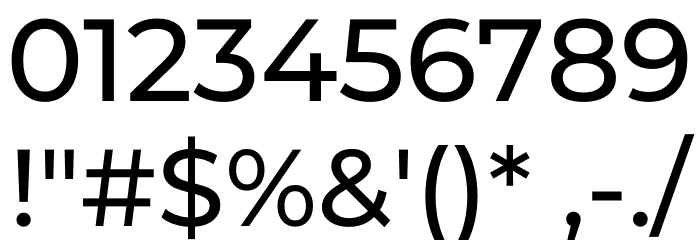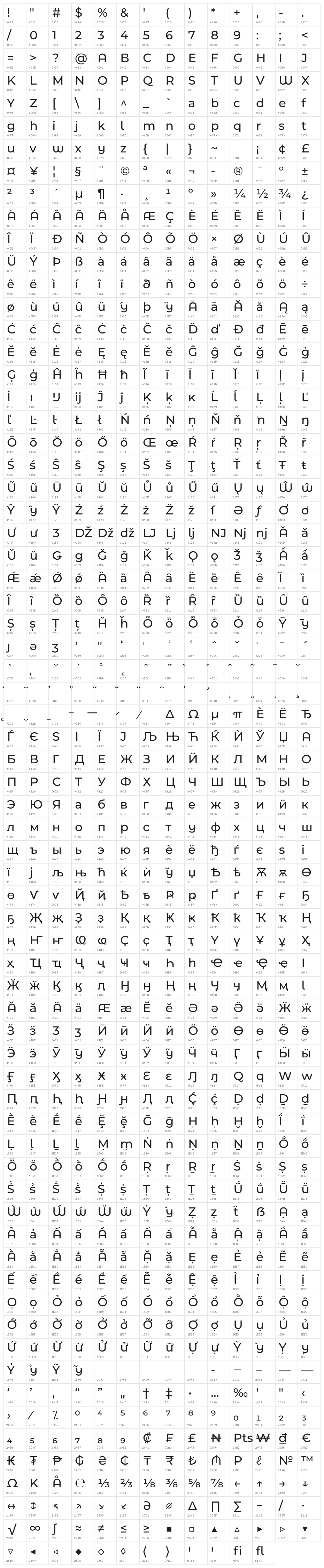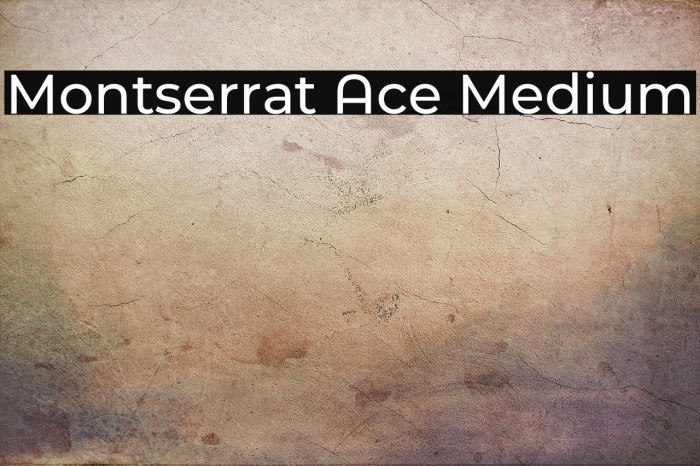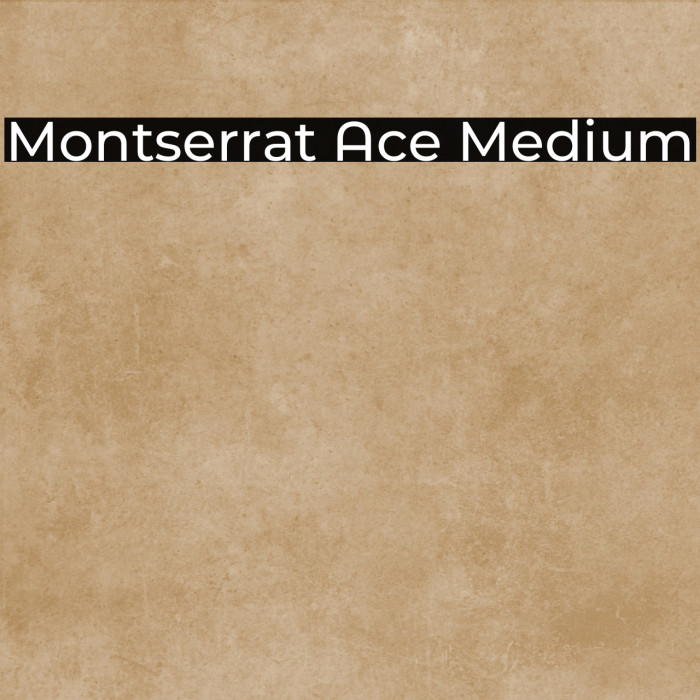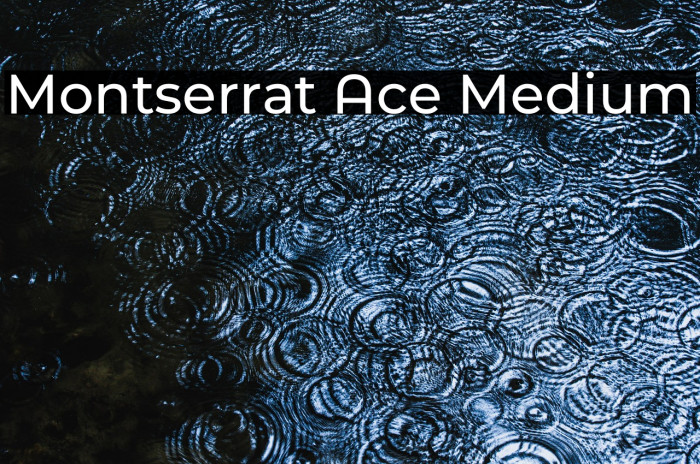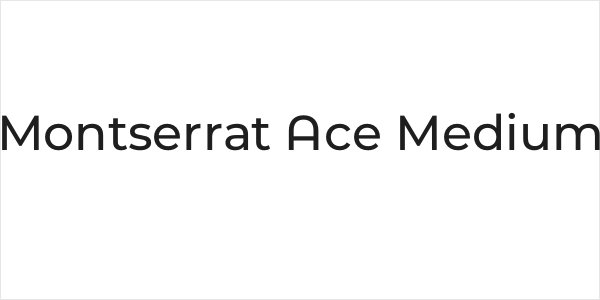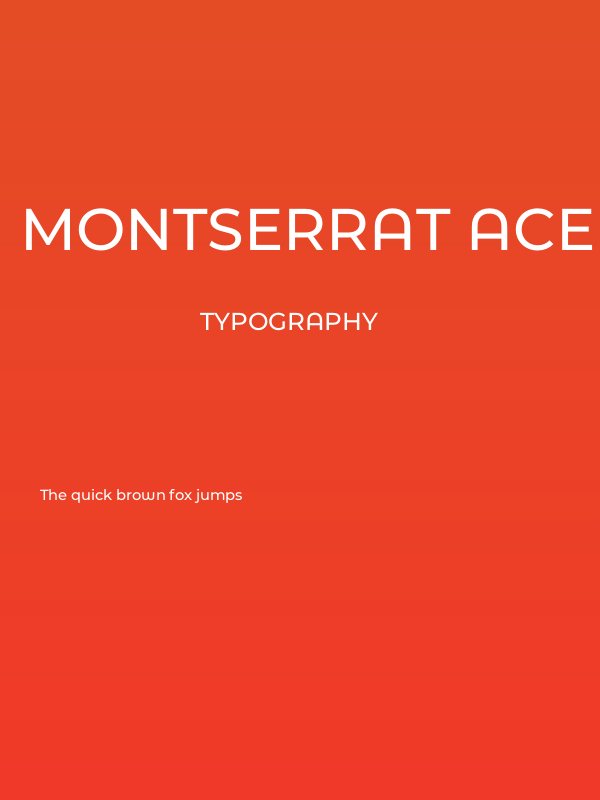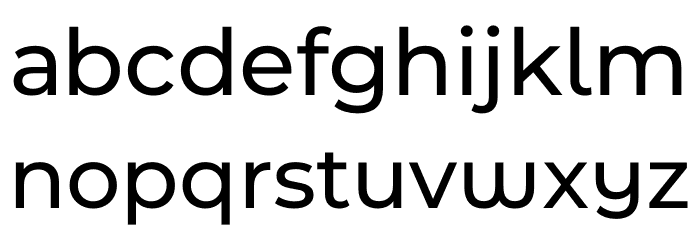
Montserrat Ace Medium Font
Montserrat Ace Medium Description
This font features a clean and modern sans-serif design with geometric influences. The characters are well-proportioned, offering a harmonious balance between curves and straight lines. The uppercase letters are bold and assertive, while the lowercase letters maintain a friendly and approachable appearance. The numerals are clear and easy to read, making them suitable for various applications. The special characters are distinct and consistent with the overall style, ensuring versatility in design projects. Its simplicity and elegance make it a popular choice for contemporary branding and digital interfaces.
Use CaseHeadlines, Body text, Logos
Proposed ProjectsIdeal for branding, web design, advertising, and editorial layouts.